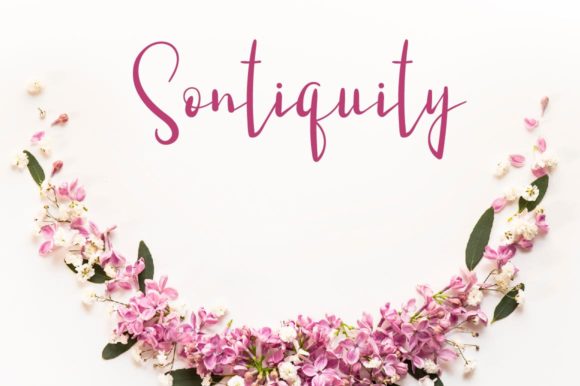
Sontiquity Font
Introducing Sontiquity Font, the captivating handwritten font that will ignite your creativity! This exquisite script, meticulously crafted by Zmapist, exudes a captivating air of elegance and charm.
Sontiquity's graceful strokes and carefully balanced curves effortlessly evoke a sense of sophisticated artistry. Immerse yourself in its light and airy presence, as it dances across your designs with a whisper of enchantment.
Whether you're crafting enchanting invitations, ethereal branding, or heartfelt quotes, Sontiquity is the perfect font to add a touch of timeless allure. Its versatility knows no bounds, seamlessly adapting to a myriad of creative endeavors.
Embrace the allure of handwritten fonts and let Sontiquity elevate your designs to new heights. With its delicate beauty and captivating charm, it promises to transform your projects into works of art.
Unlock the boundless possibilities of Sontiquity Font today and let its enchanting script captivate your imagination!